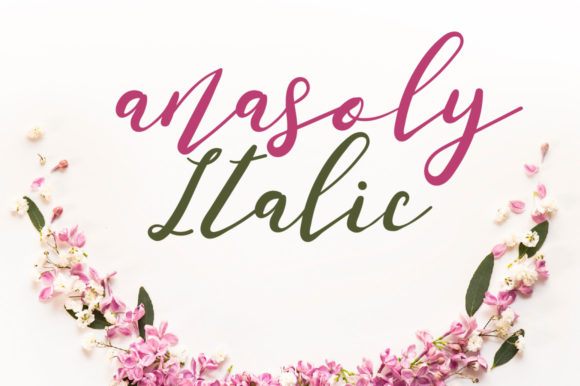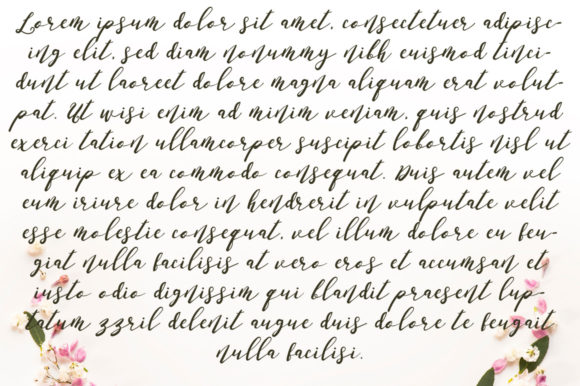
Anasoly Italic Font
About Anasoly Italic Font
Analyst Italic is a beautiful and authentic handwritten font with a unique twist. Get inspired by its playful charm.